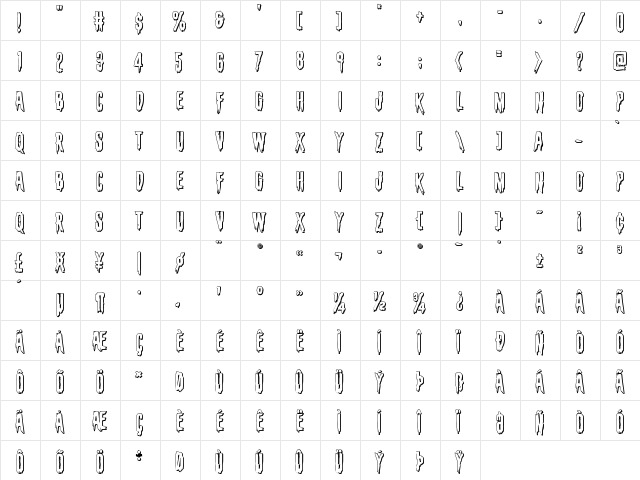
Eva Fangoria 3D Regular Font Preview
Eva Fangoria 3D Regular
Design Context for Eva Fangoria 3D Typeface
Eva Fangoria 3D is a composed and adaptable typeface that performs quietly and consistently across a wide range of design contexts.